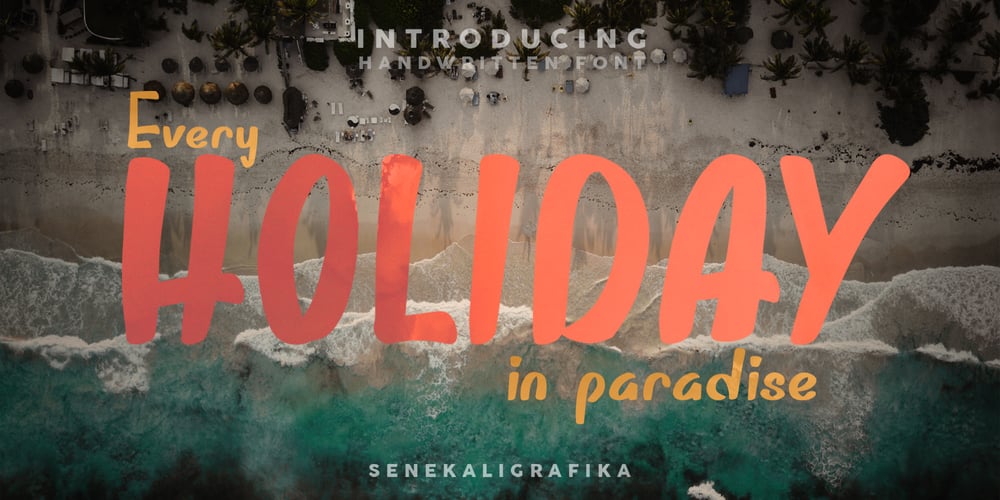
Holiday In Paradise Font Family was designed by Muhammad Helmi and published by Senekaligrafika. Holiday In Paradise contains 1 styles and family package options. “Holiday In Paradise” is a playful handwriting font special for summer display, that puts a smile on your project and will inspire you to create something fun and memorable.“Holiday In Paradise” will help you to create special and touching typographical design for holiday projects, for every day or the happiest day in life, happy birthday cards, baby shower, greeting card, headings, flyer, product packaging, book cover, printed quotes, logos, and many more.It is really universal and modern font.The owner of endless possibilities!